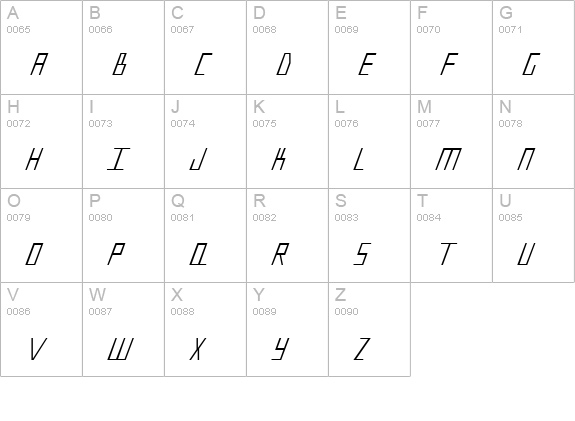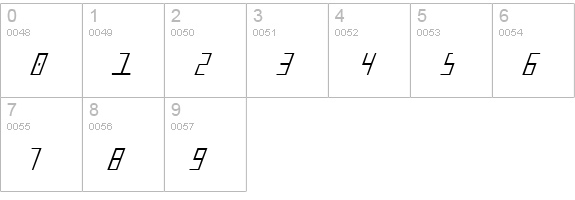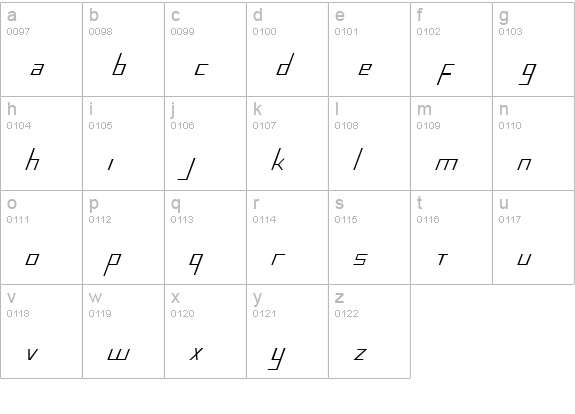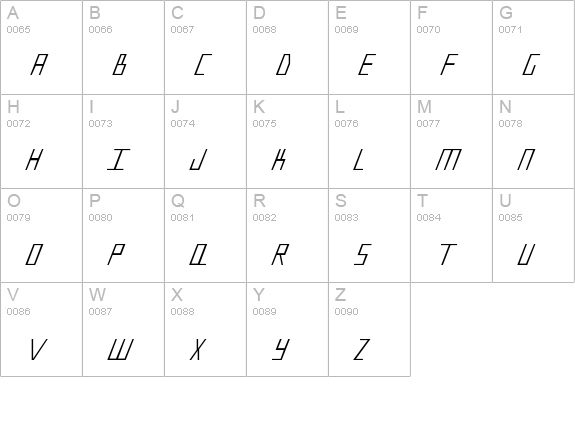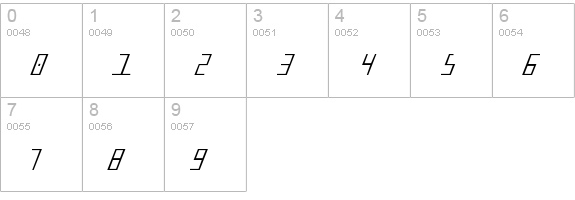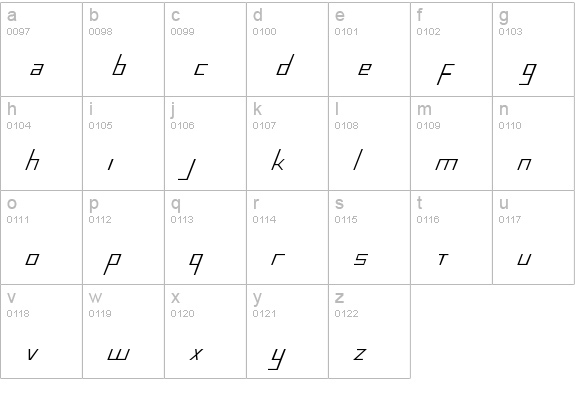
Blue July Condensed is a distinctive, condensed-width variant in the Blue typeface family \xE2\x80\x94 well suited to design and typography projects.
Blue July Condensed font is a modern and stylish typeface that exudes elegance and sophistication. With its sleek and streamlined design, this font is perfect for creating eye-catching headlines, titles, and promotional materials. The condensed style adds a unique touch to any project, making it stand out from the rest. The Blue July Condensed font is versatile and can be used for various design projects, from branding to packaging to web design. Its clean lines and contemporary look make it a popular choice among designers and creatives looking for a fresh and modern font to elevate their work. Best of all, Blue July Condensed font is available for free download at FontsMarket.com. This means you can easily access this beautiful font and use it in your projects without any cost. Whether you are a professional designer or just starting out, Blue July Condensed font is a valuable addition to your font library. Download it today and see how it can enhance your designs!